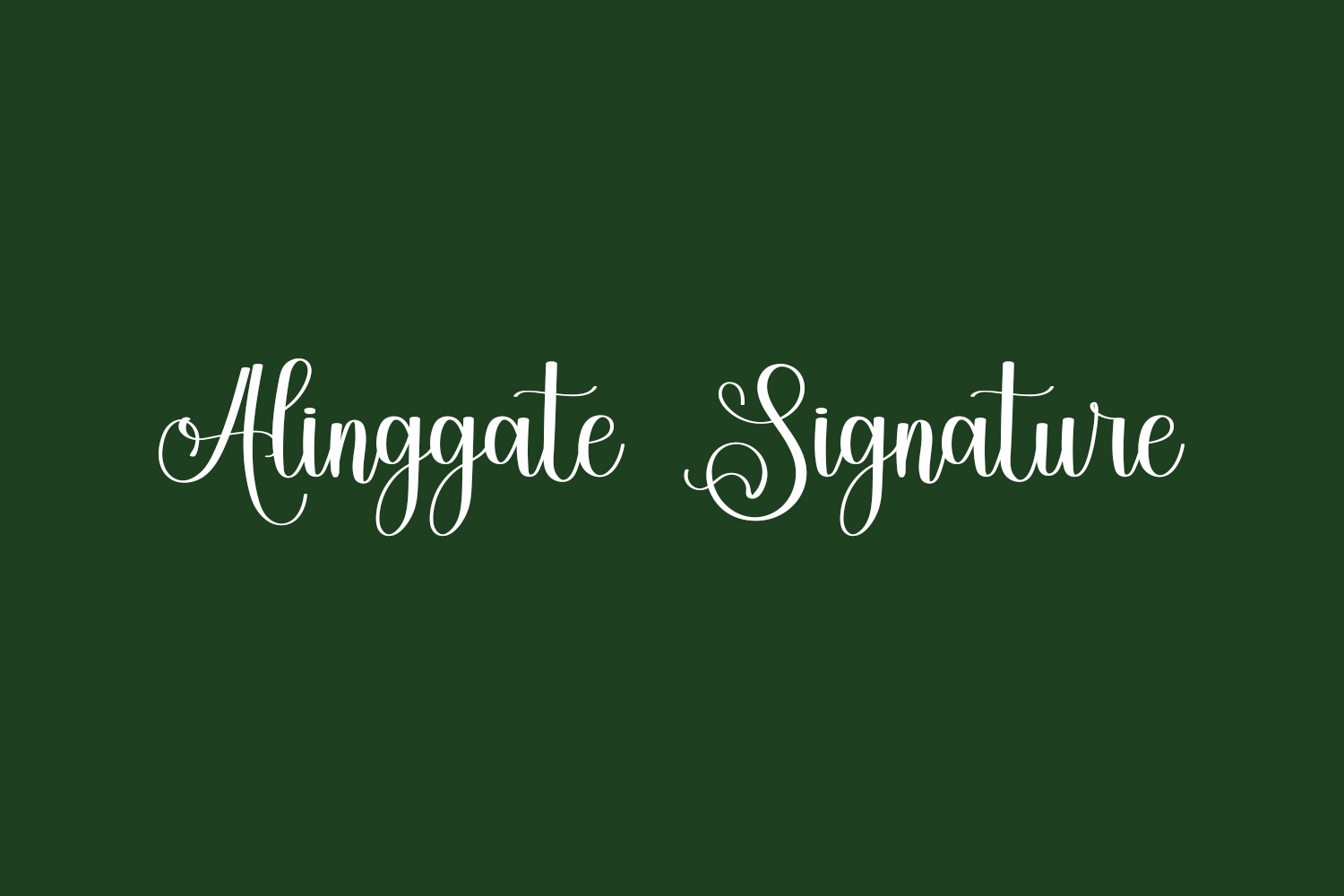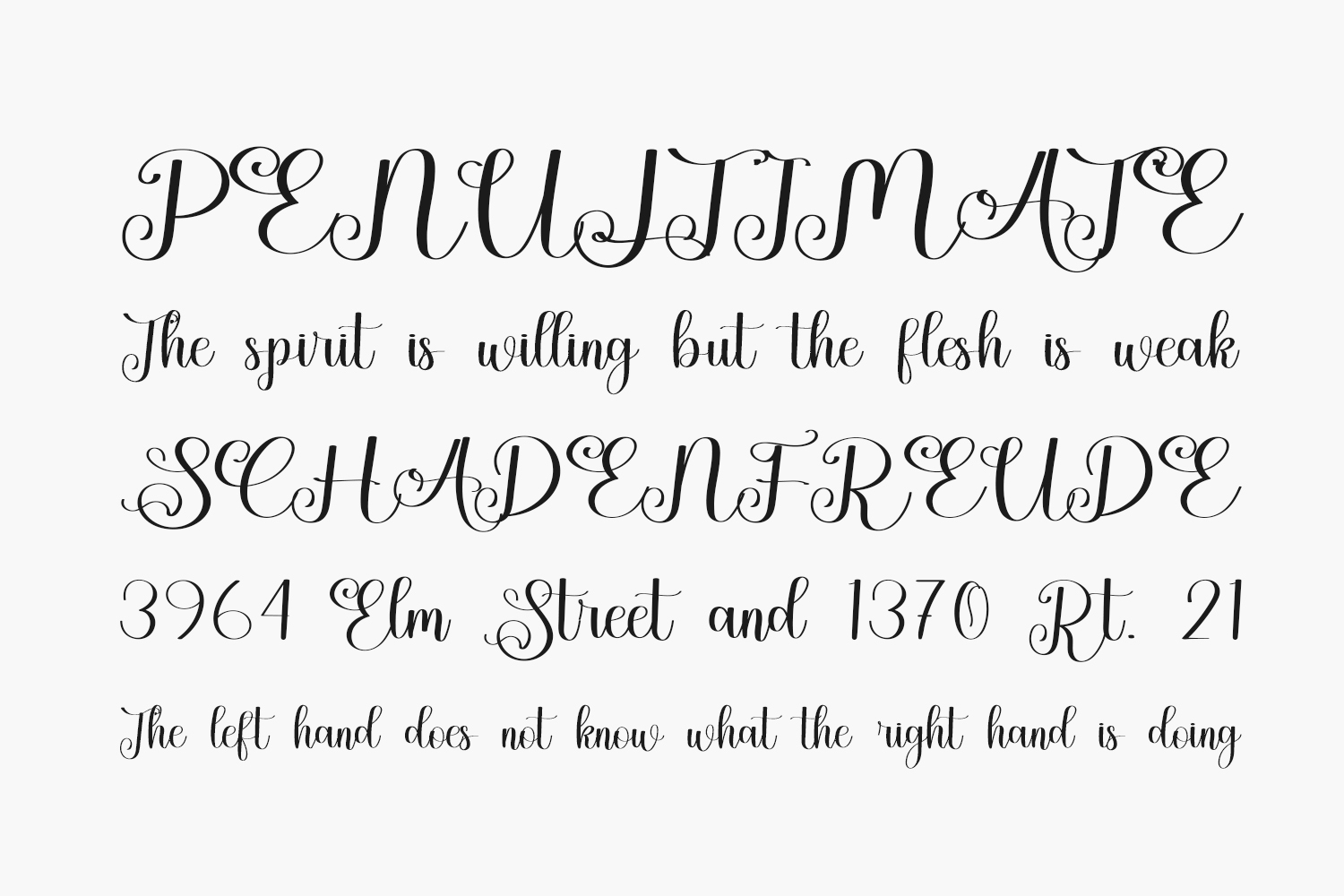
Introducing Alinggate Signature Free Font, an exquisite and fashionable handwritten font. Radiating confidence and dynamism, it infuses your designs with a delightful touch of nostalgia and captivating character. Embrace its beauty to elevate your creative endeavors to new heights. Alinggate Signature Free Font is free for personal use only. Please purchase the full version for commercial use.
Designed by FreshtypeINK